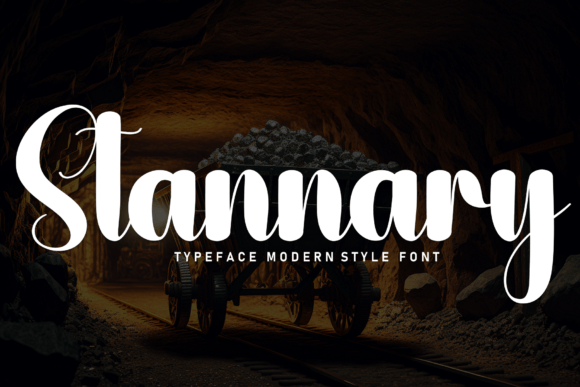
Welcome to the world of Stannary Font, a captivating script font family that exudes warmth and charm. Its delicate and playful characters evoke a sense of nostalgia, adding a touch of whimsy to your creative endeavors.
Crafted by the talented Strongkeng Old, Stannary Font is a visual delight that captures the essence of handwritten elegance. Each letter is meticulously designed to flow seamlessly, creating a cohesive and harmonious aesthetic.
Whether you're designing a heartfelt wedding invitation, a whimsical children's book, or a charming brand logo, Stannary Font is the perfect choice to add a personal touch and make a lasting impression.
**Make Your Invitation Shine:**
With Stannary Font, your wedding invitations will be transformed into cherished keepsakes. Its graceful strokes and elegant curves add a touch of romance and sophistication to your special day.
**Create Enchanting Children's Stories:**
Bring children's imaginations to life with Stannary Font. Its playful and cheerful characters will captivate young readers, making story time an unforgettable experience.
**Elevate Your Branding Efforts:**
Make your brand stand out with the distinctive charm of Stannary Font. Its friendly and approachable style will resonate with your customers and help build a strong connection with your brand.
**Flourish Your Creative Designs:**
Stannary Font is the perfect companion for creative projects of all kinds. Add a dash of whimsy to social media posts, design eye-catching posters, or create stunning artwork with its versatile and expressive style.
**Unleash Your Inner Artist:**
With Stannary Font, the possibilities are limitless. Let your creativity flourish as you explore new and exciting ways to express yourself through the art of typography.